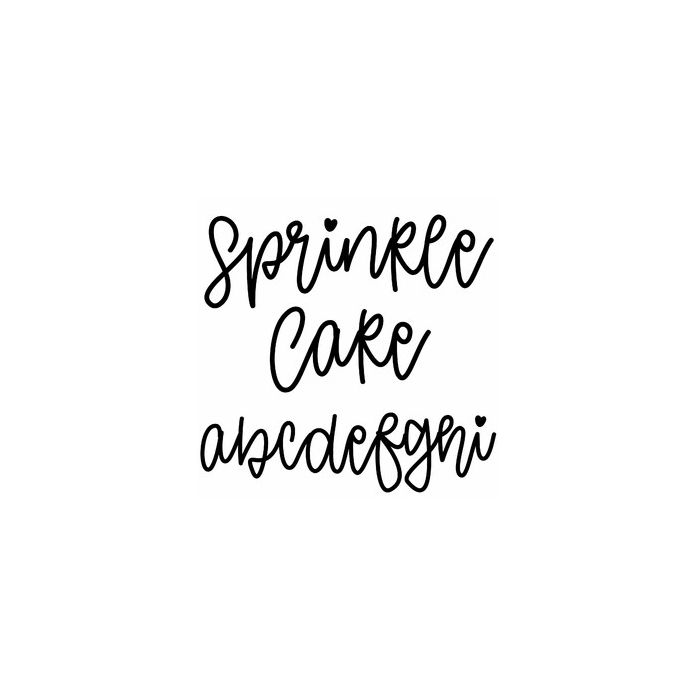
Heart handwriting script font for Valentine's Day, birthday, Easter, wedding, and spring crafts, monograms, planners, stickers, and personalization projects. Includes alphabet, numbers, and punctuation.